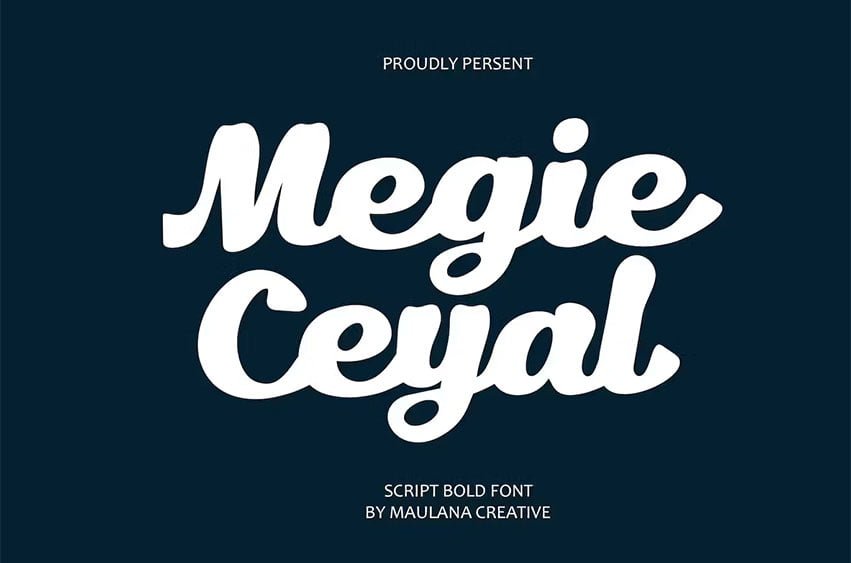
Megie Ceyal Font bold script font. This font is good for logo design, Social media, Movie Titles, Books Titles, a short text even a long text letter and good for your secondary text font with signature or script typeface. Make a stunning work with Megie Ceyal bold script font.